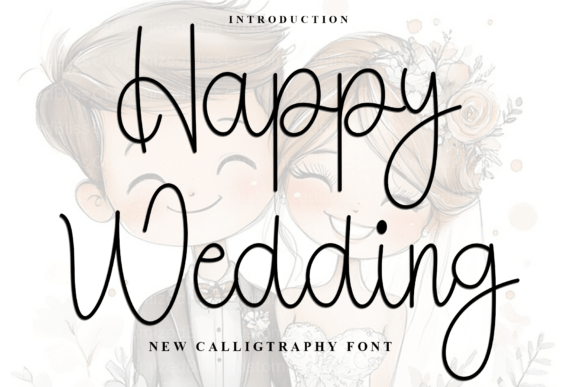
The Perfect Font for a Dreamy Wedding Day
As I sat at my desk, scrolling through font collections, I stumbled upon a beautiful and elegant script that caught my eye. The soft curves and delicate strokes of the Happy Wedding Font had me hooked from the very start. I couldn’t help but imagine it adorning the wedding invitations, programs, and even the wedding cake of a lovely couple I knew.
Designed with a unique touch, the Happy Wedding Font is more than just a pretty face – it’s a versatile tool for designers looking to add a personal touch to their projects. With its wide range of characters, it’s perfect for everything from wedding designs to craft projects and more. Whether you’re a seasoned designer or a creative enthusiast, the Happy Wedding Font is sure to bring a touch of magic to your work.
Happy Wedding Font Key Features
- Font Style: A beautiful, elegant, and cursive script font, ideal for wedding invitations, announcements, and other special occasions.
- Unique Characteristics: The font features intricate flourishes, swashes, and connecting strokes, giving it a unique and romantic touch.
Happy Wedding Font Review
I recently had the chance to work with the Happy Wedding Font, and I must say it’s a beautiful addition to any wedding design. ✨ The font’s elegant script and intricate details add a touch of sophistication and romance to any project. The font is perfect for creating wedding invitations, programs, and even decorations. ✨ The variety of styles and weights available make it easy to mix and match to achieve the desired look.
However, I do have a few concerns. ⚠️ The font can be a bit challenging to read, especially in smaller sizes. The intricate details can make it difficult to distinguish between similar letters. Additionally, the font may not be suitable for body text, as it can be a bit overwhelming. ⚠️ It’s best to use it for titles, headings, and other decorative elements.
Overall, I think the Happy Wedding Font is a great choice for wedding designers and planners. With its beautiful design and variety of styles, it’s sure to impress. Just be mindful of the font’s limitations and use it judiciously.
Here are some pros and cons to consider:
- ✨ Beautiful design and intricate details
- ✨ Variety of styles and weights available
- ⚠️ Can be challenging to read in smaller sizes
- ⚠️ Not suitable for body text
Use Happy Wedding Font for wedding invitations, save-the-dates, and wedding stationery.
Combine Happy Wedding Font with other wedding-themed elements, such as flowers and hearts, to create a cohesive and romantic design.
Alternatives to Happy Wedding Font
Lobster Font is a popular cursive font that is often used for wedding invitations and other wedding-related materials. It has a playful, elegant feel that is perfect for rustic or vintage-themed weddings. Unlike Happy Wedding Font, Lobster Font has a more relaxed, casual look that is suitable for a variety of wedding styles.
Great Vibes Font is a beautiful, elegant script font that is perfect for formal or luxury weddings. It has a sophisticated, high-end feel that is reminiscent of traditional wedding invitations. Unlike Happy Wedding Font, Great Vibes Font has a more refined, polished look that is suitable for high-end weddings or formal events.
Pacifico Font is a beautiful, modern script font that is perfect for beach or outdoor weddings. It has a relaxed, casual feel that is reminiscent of tropical getaways. Unlike Happy Wedding Font, Pacifico Font has a more laid-back, carefree look that is suitable for casual or beach-themed weddings.